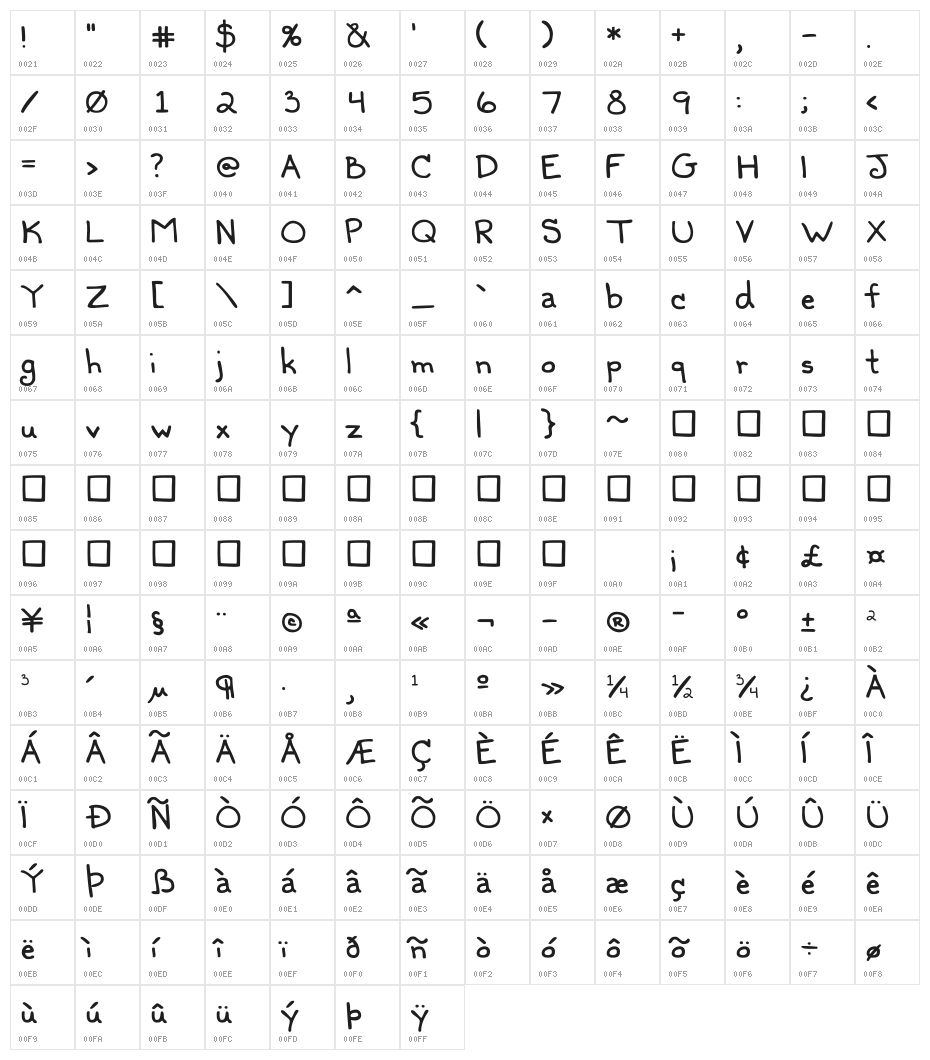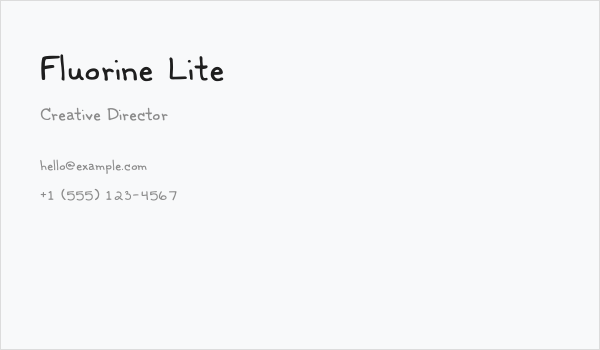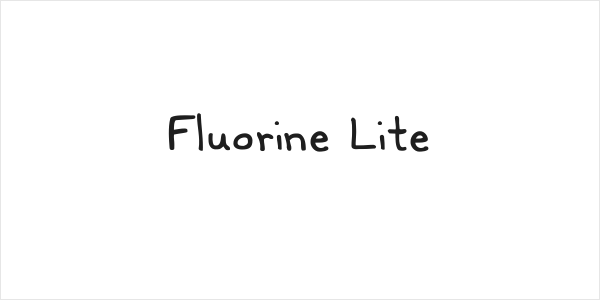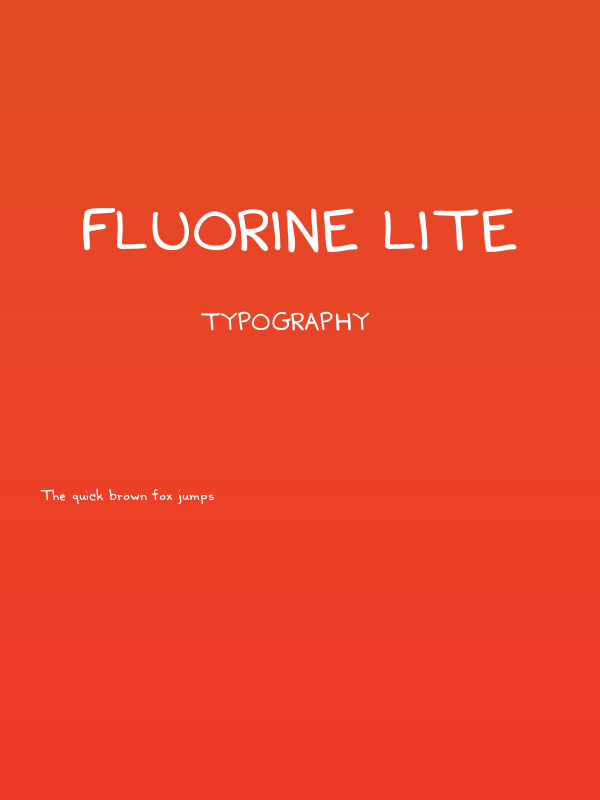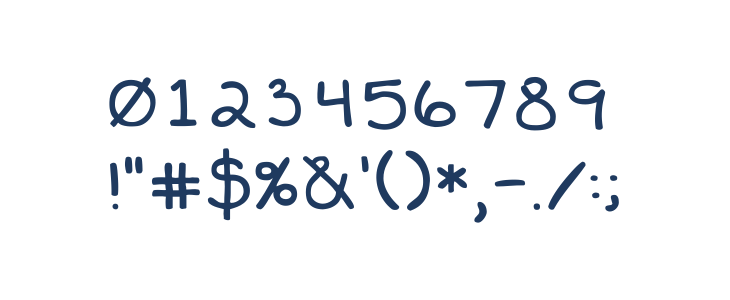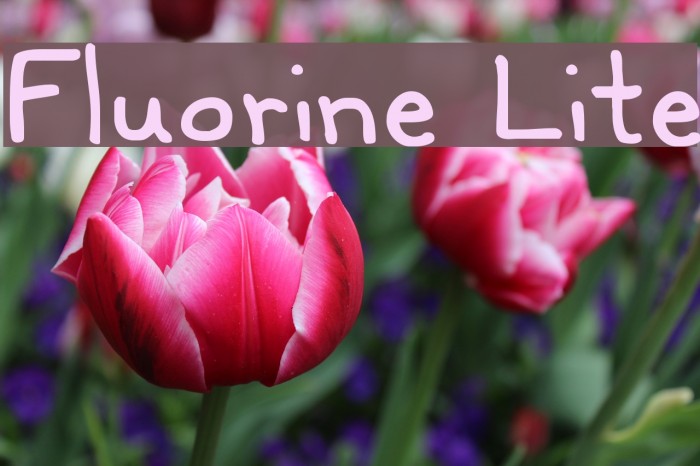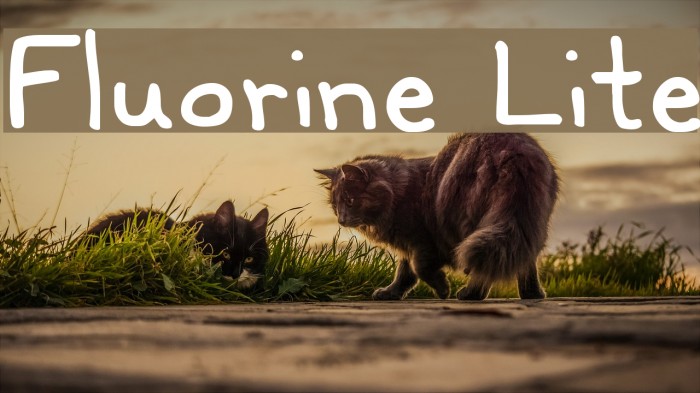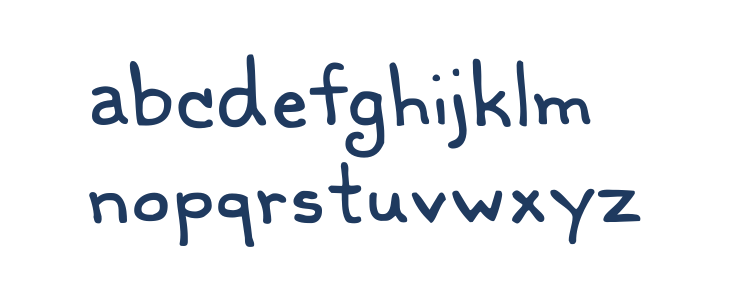
Fluorine Lite Font
Fluorine Lite Description
This font features a playful and casual handwritten style, characterized by its rounded edges and slightly irregular letterforms. The uppercase letters are bold and prominent, while the lowercase letters maintain a consistent flow with a touch of whimsy. Numbers and special characters are designed to match the overall informal aesthetic, making them easy to read while retaining a unique charm. The font's friendly appearance is suitable for projects that require a personal touch, such as invitations, greeting cards, or children's books.
| Use Case | Headlines, Informal text, Branding |
| Proposed Projects | Ideal for invitations, greeting cards, children's books, and casual branding. |